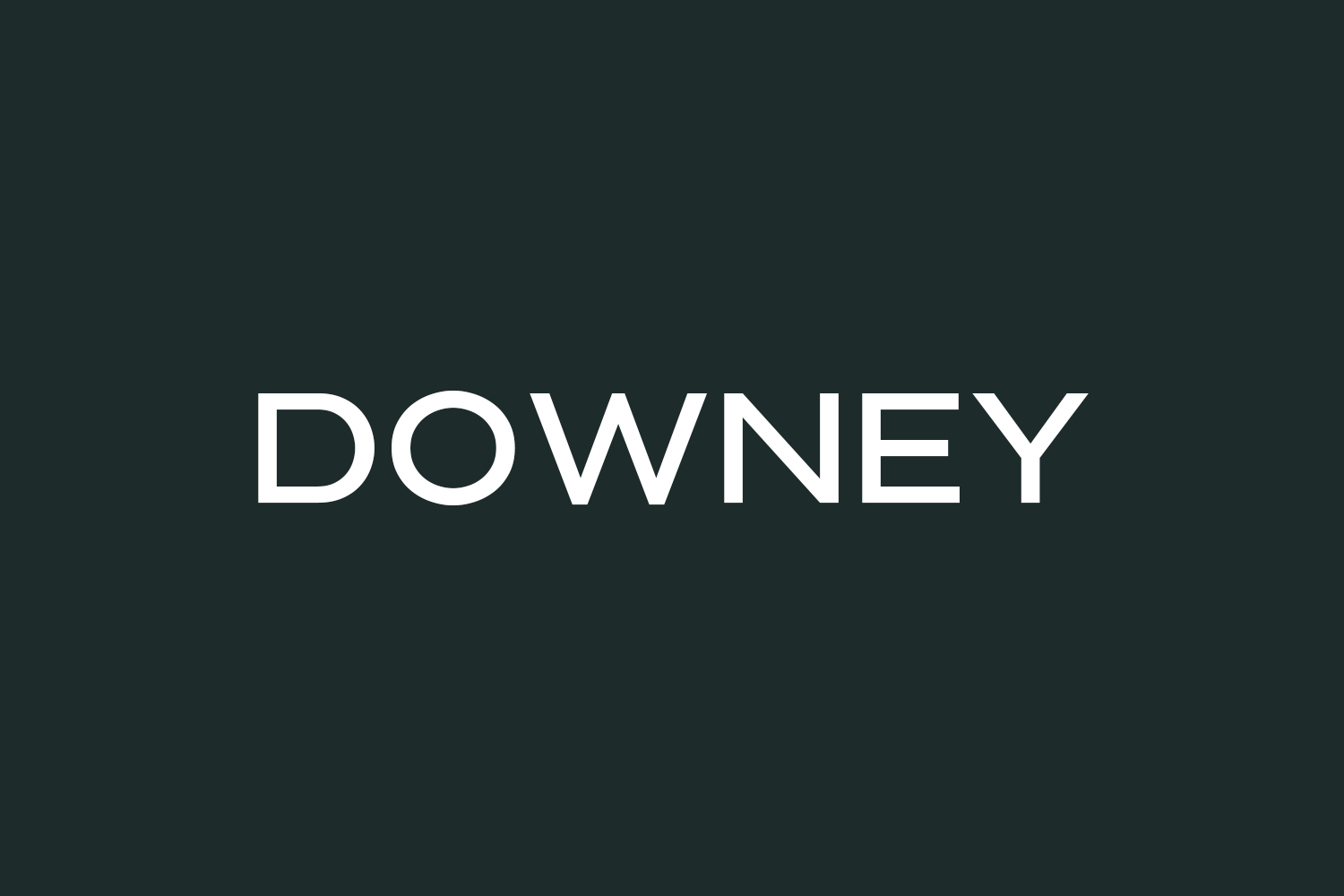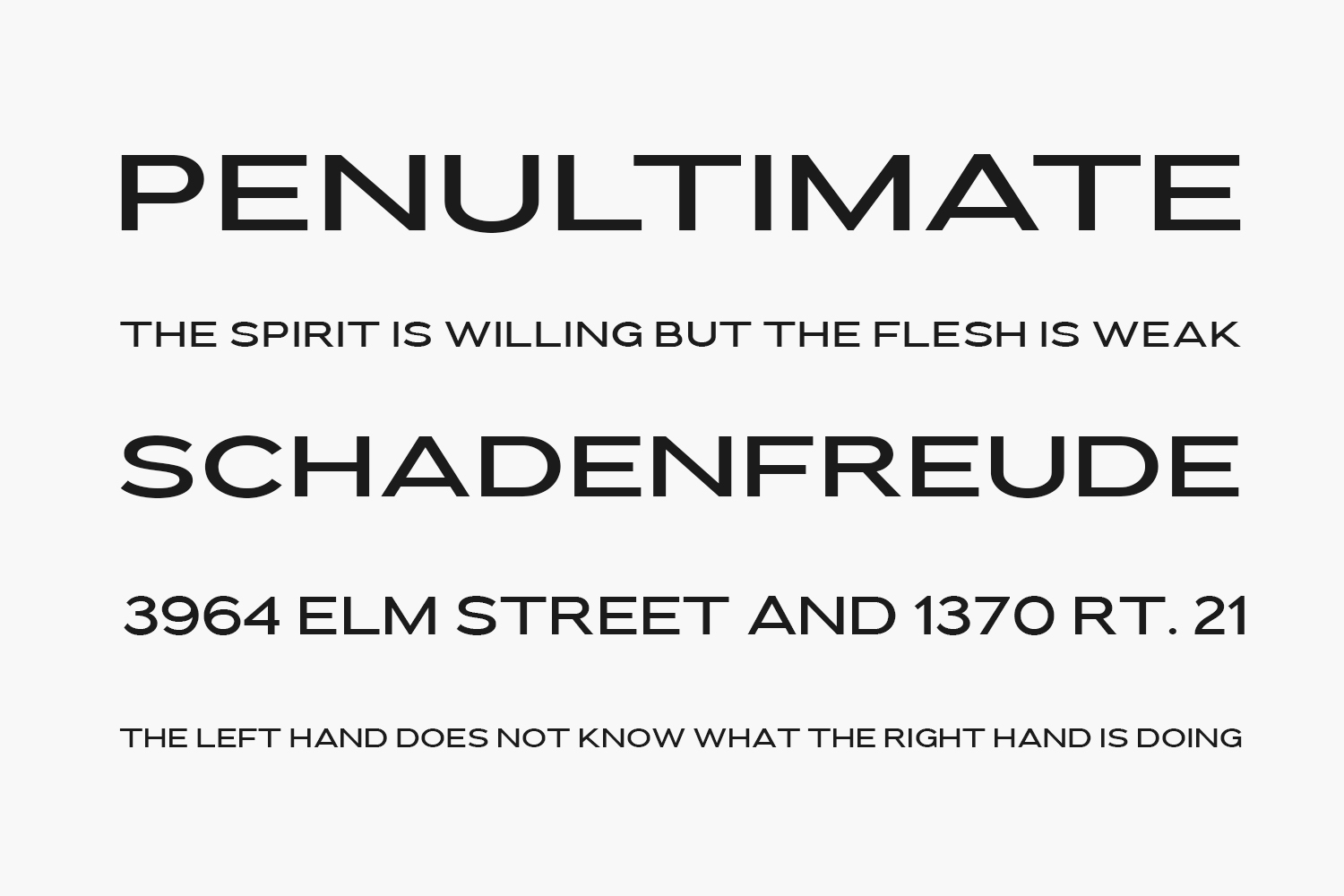
Discover Downey Free Font, an informal yet indispensable all-caps sans serif font. Characterized by a subtly wide form and a robust appearance, this versatile font is perfect for a wide range of projects and designs. Whether for titles, quotes, covers, business cards, or any other creative endeavor, Downey adds a touch of strength and style to your typography. Downey Free Font was designed by Saridezra and is free for personal use only. Please purchase the full version for commercial use.